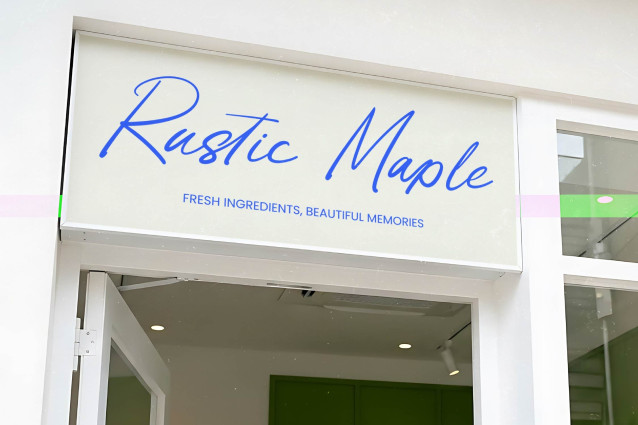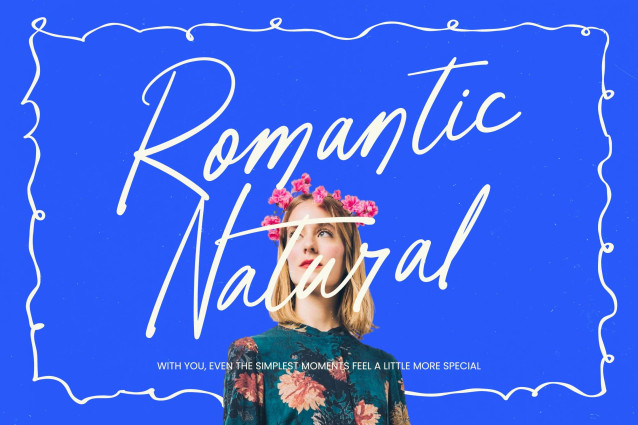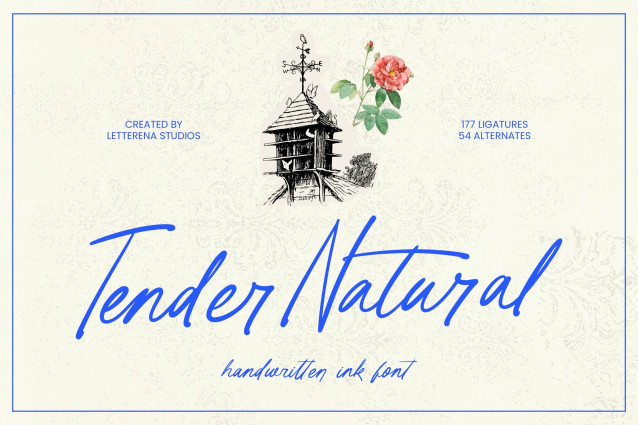
Tender Natural – Handwritten Ink Font is a masterfully designed typeface that captures the raw elegance of real ink on paper, offering a handcrafted aesthetic that is both personal and professional. Featuring an impressive library of 177 ligatures and 54 alternates, this font ensures that your typography remains dynamic and unique, mimicking the fluid variations of natural handwriting for a truly bespoke visual identity.
Experience the perfect blend of sophistication and versatility across a wide range of premium applications. This handwritten ink font is the ideal solution for luxury branding, high-end packaging, and editorial design where a sense of intimacy and quality is paramount. Tender Natural – Handwritten Ink Font is also perfect for wedding stationery, logo design, and lifestyle photography, providing a refined yet approachable look that resonates with modern consumers.